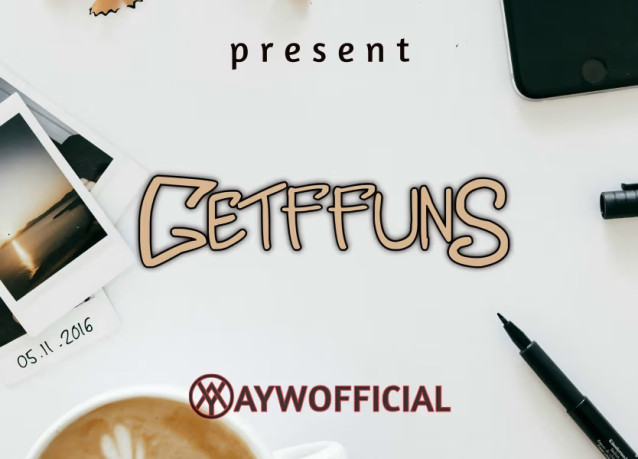
GetFuns Playful Font
GetFuns Playful Font is a carefully handcrafted handwritten display font, created to embody sincerity, personality, and a fun-loving spirit. Its smooth curves, casual letterforms, and imperfect charm give a warm, human touch to any design — whether you’re making bold headlines, heartfelt invitations, or standout merchandise.
Developed with attention to emotional storytelling and design versatility, GetFuns seamlessly bridges the space between expressive and functional typography.